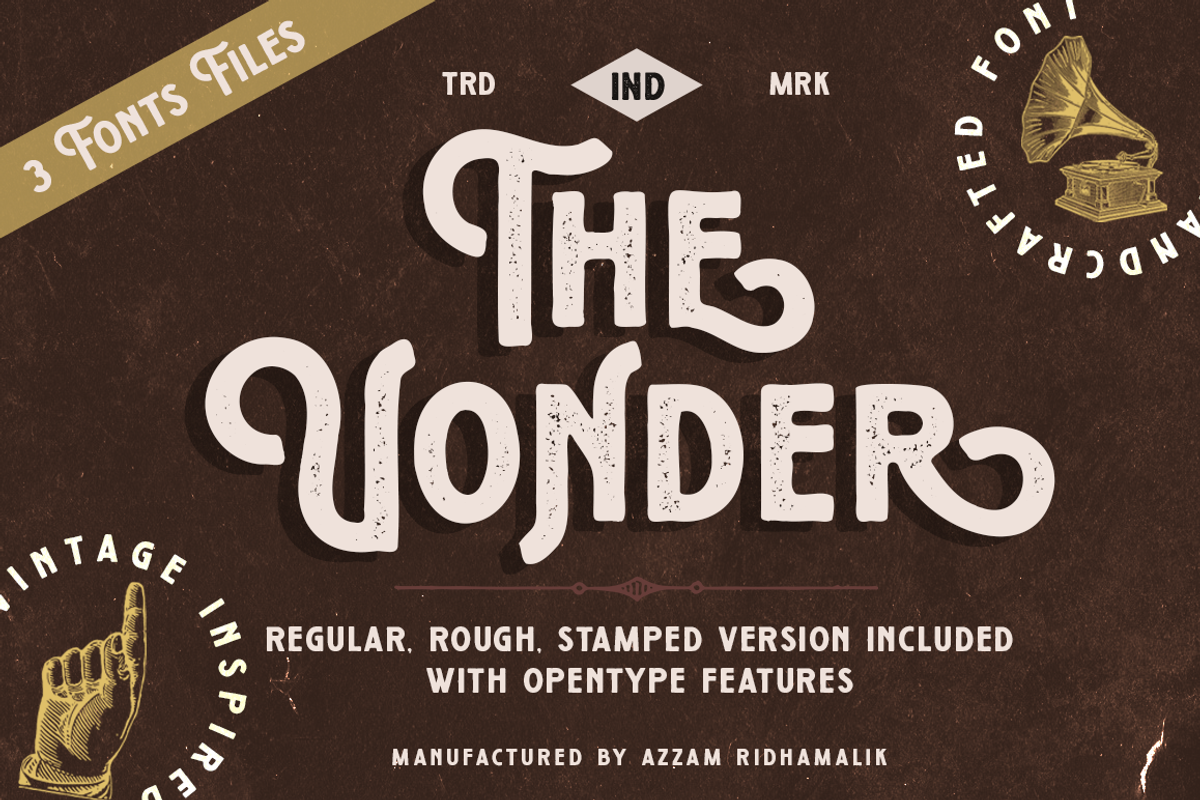
Vonder - Vintage Sans Serif Font Free Download
Vonder - Vintage Sans Serif Font Free Download is a stylish and bold typeface that draws inspiration from classic vintage design with a modern twist. Featuring clean, geometric letterforms and unique details, this font is perfect for retro-themed projects, branding, packaging, signage, and posters.
Its timeless sans serif style combined with subtle vintage elements makes it ideal for designs that need a touch of nostalgia while maintaining a contemporary look. Whether you're working on a logo, social media graphics, or product labels, Vonder brings a sense of sophistication and character to your typography.